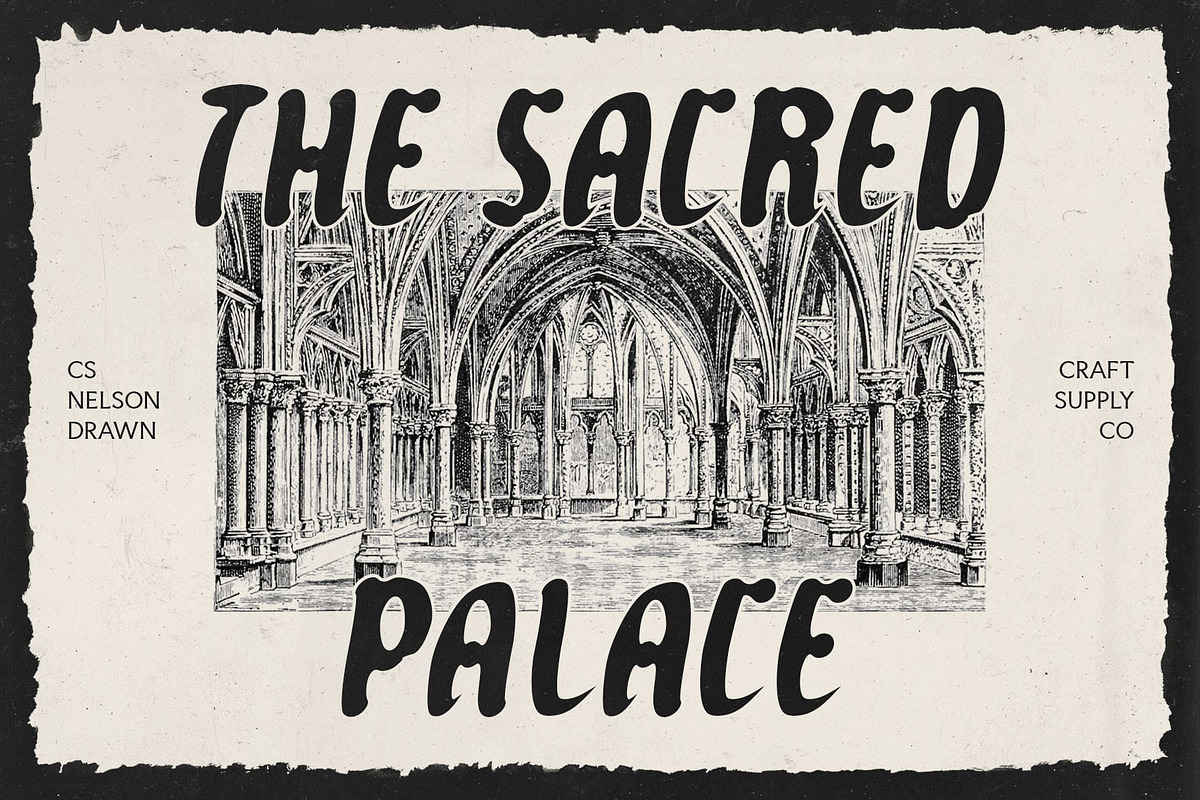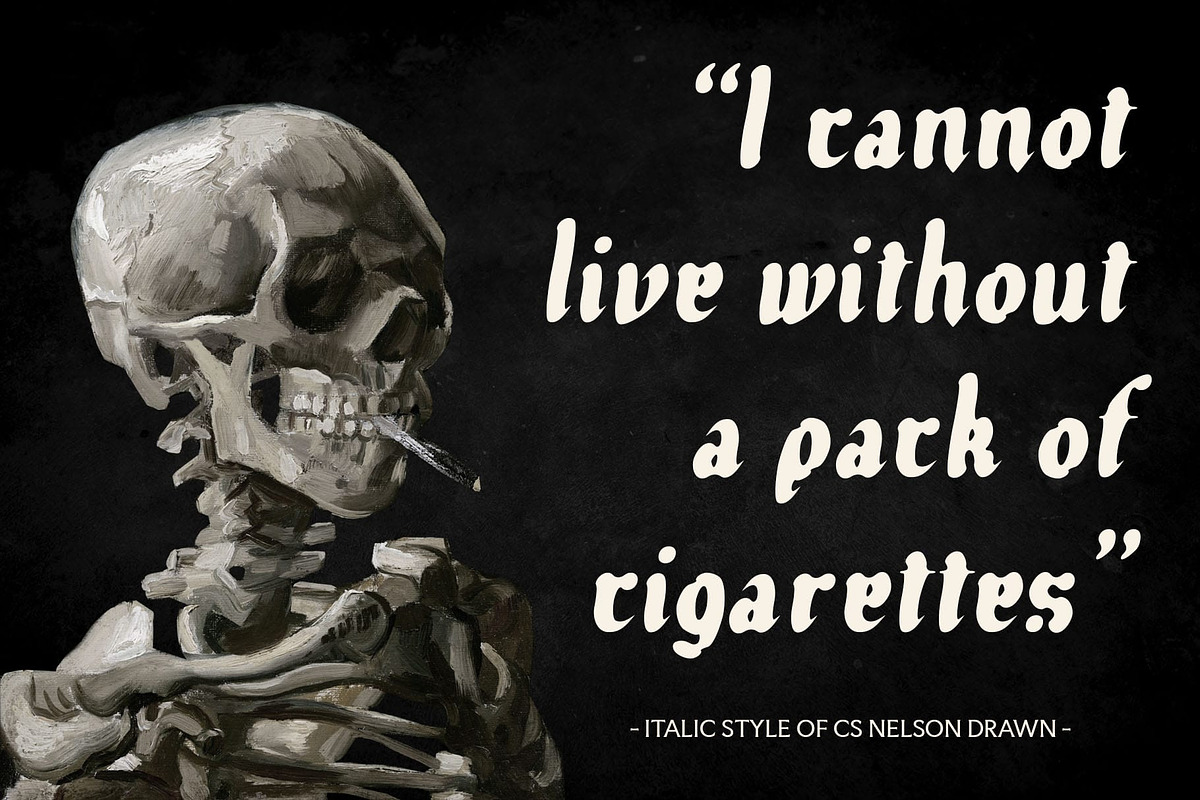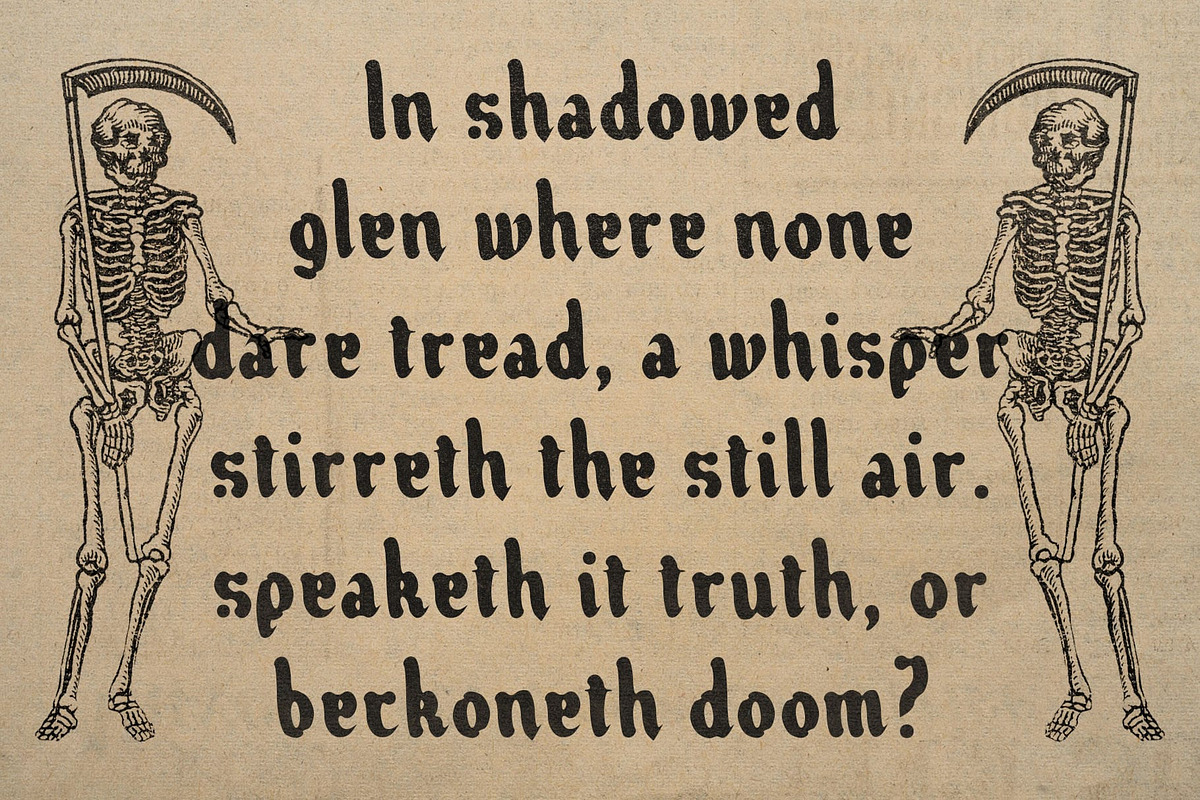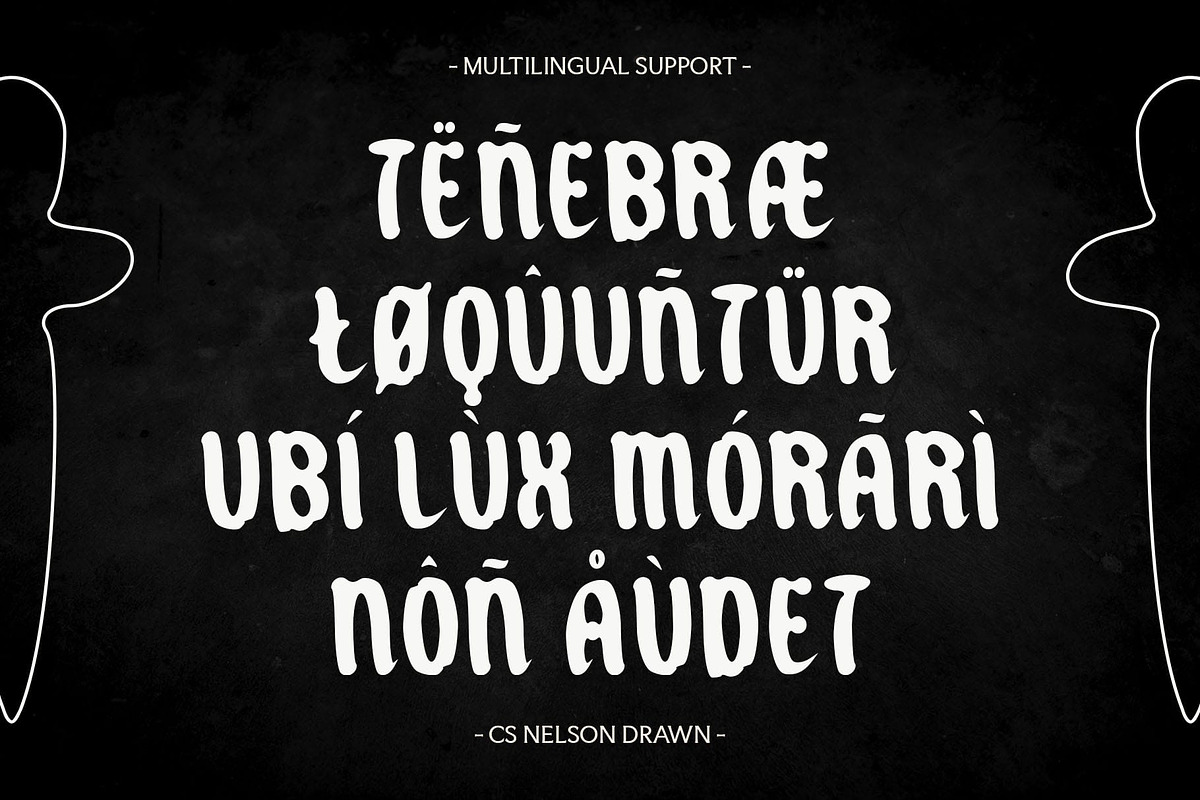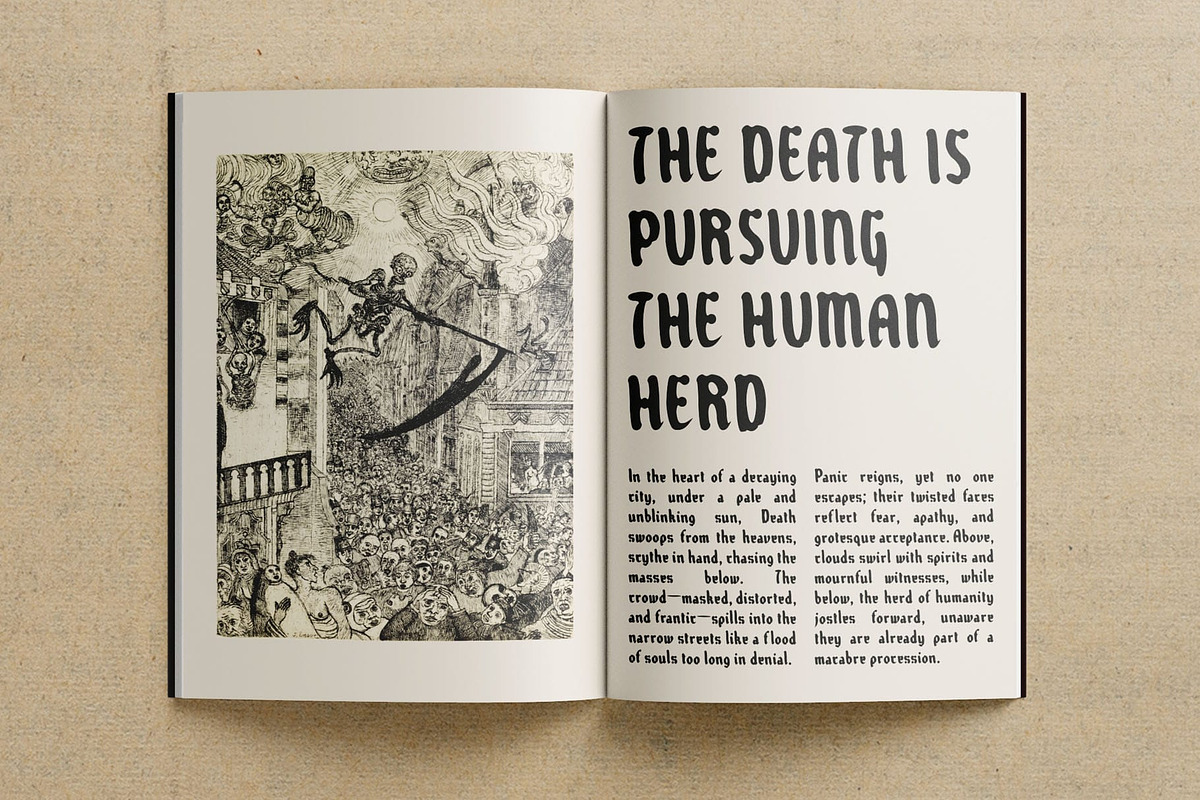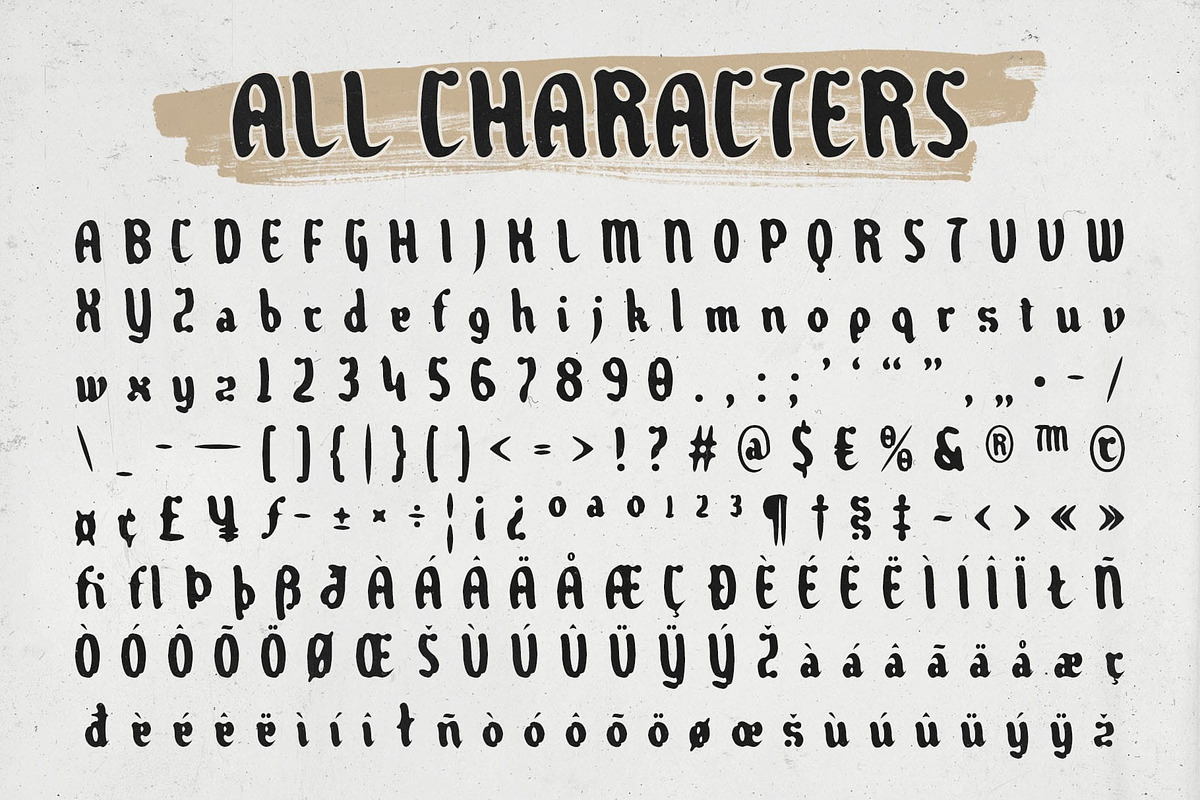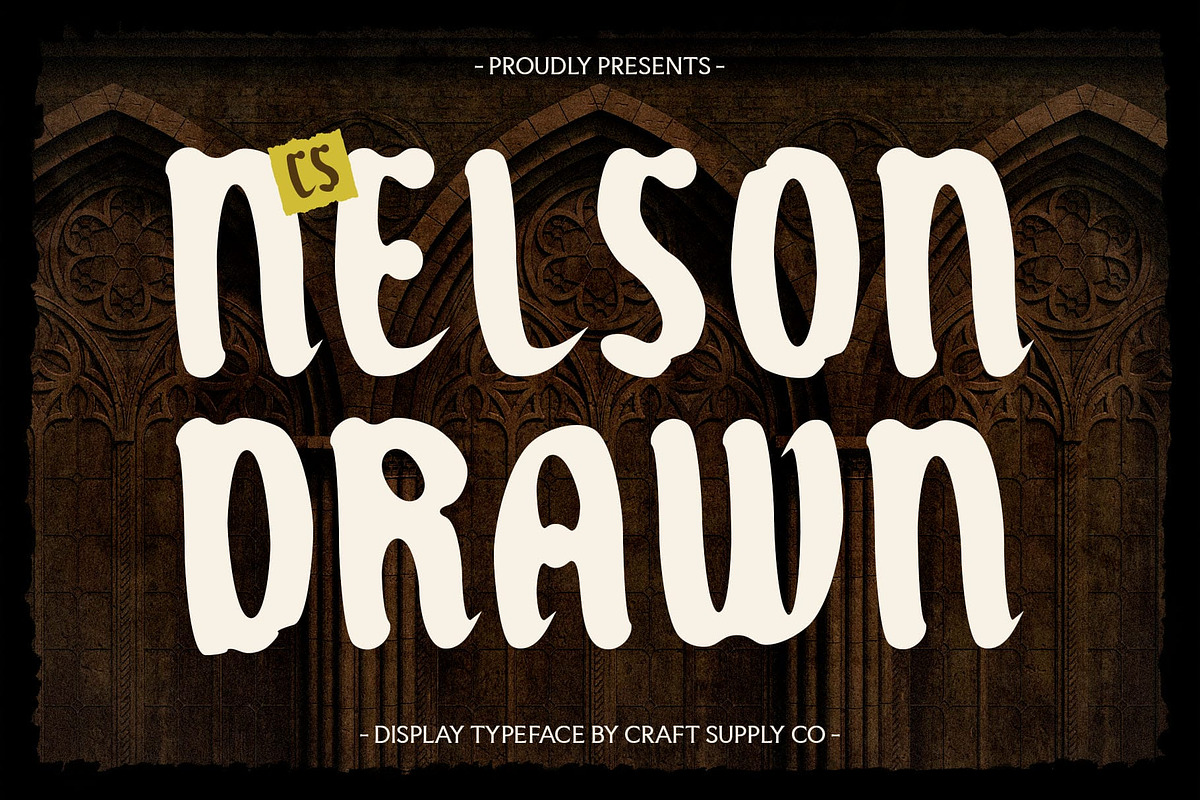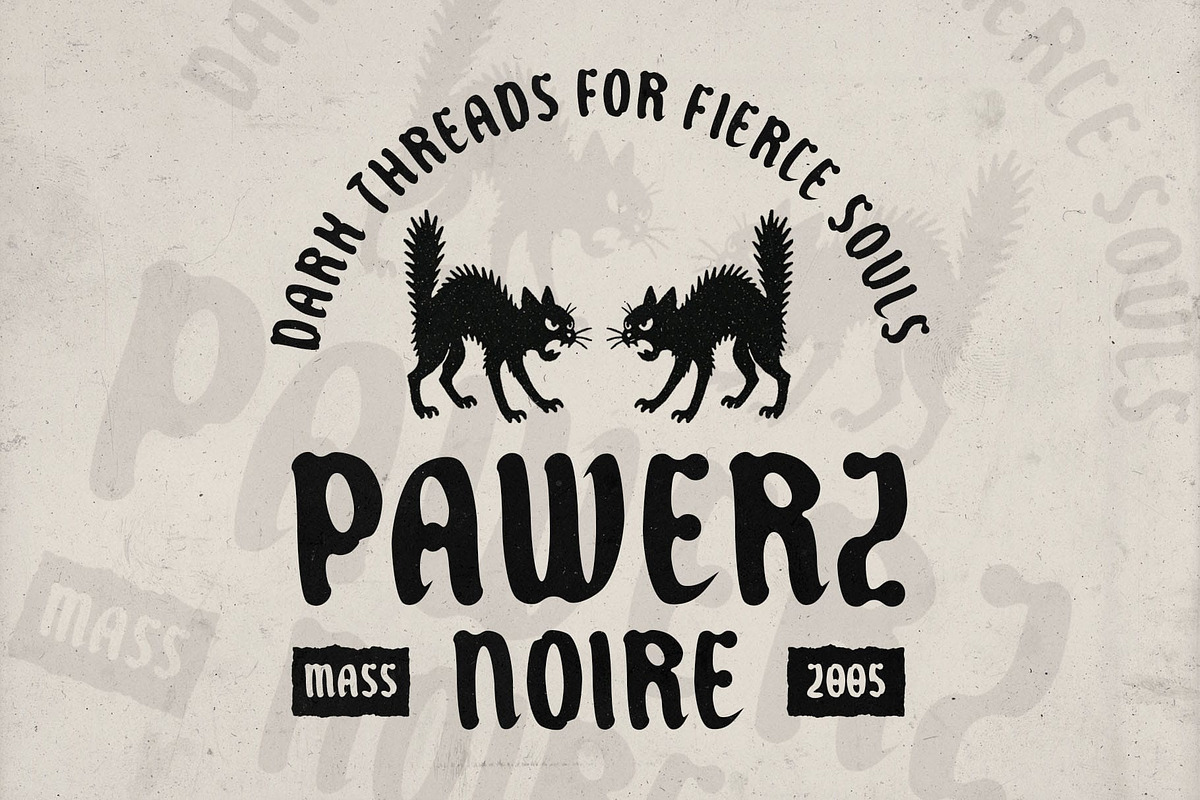
CS Nelson Drawn
CS Nelson Drawn: Gothic Expression with a Handcrafted Edge
Display Font with Bold Gothic Style This is a striking display font rooted in bold Gothic forms, characterized by its dramatic shapes and sharp presence. It captures the essence of classic blackletter aesthetics while translating it into a contemporary design language that commands attention and evokes emotion.
Handcrafted Appeal with Drawn Effect The drawn effect introduces a raw, organic texture that softens the rigid Gothic structure. This handcrafted feel brings depth and personality, enhancing the font’s visual richness and adding a unique artistic flair. It feels authentic, expressive, and perfect for creative applications that need a human touch.
Expressive, Dark, and Distinctive With its commanding presence and moody tone, this gothic font embodies a dark yet creative energy. It’s perfect for projects that seek to break conventions and make bold visual statements—infusing every letter with meaning and emotion.
Ideal for Music, Art, and Alternative Branding Perfect for edgy music posters, album covers, unconventional branding, and experimental art, this stylish font is designed to stand out. Its bold gothic style paired with a handcrafted twist makes it the go-to choice for projects that value originality, intensity, and visual impact.